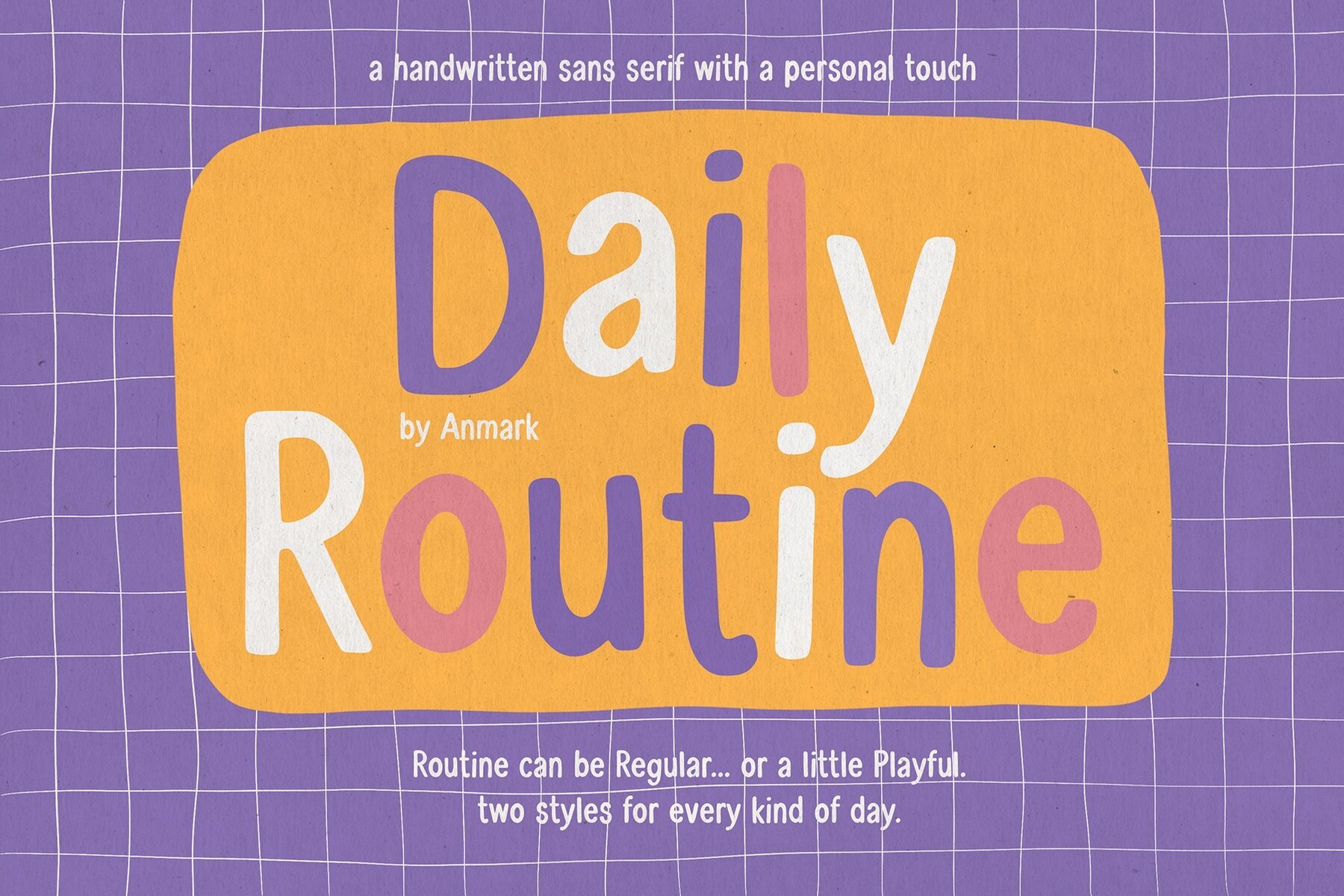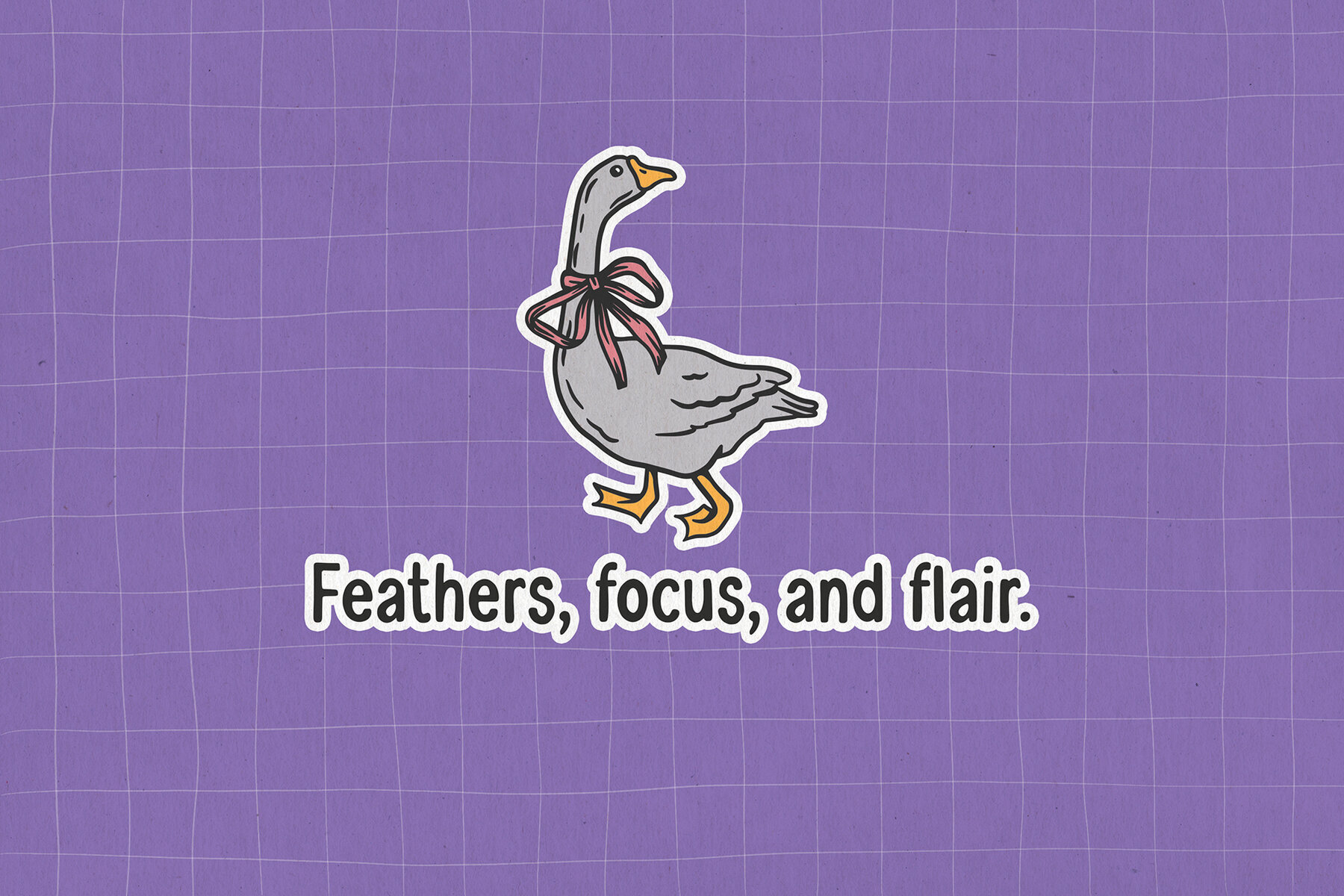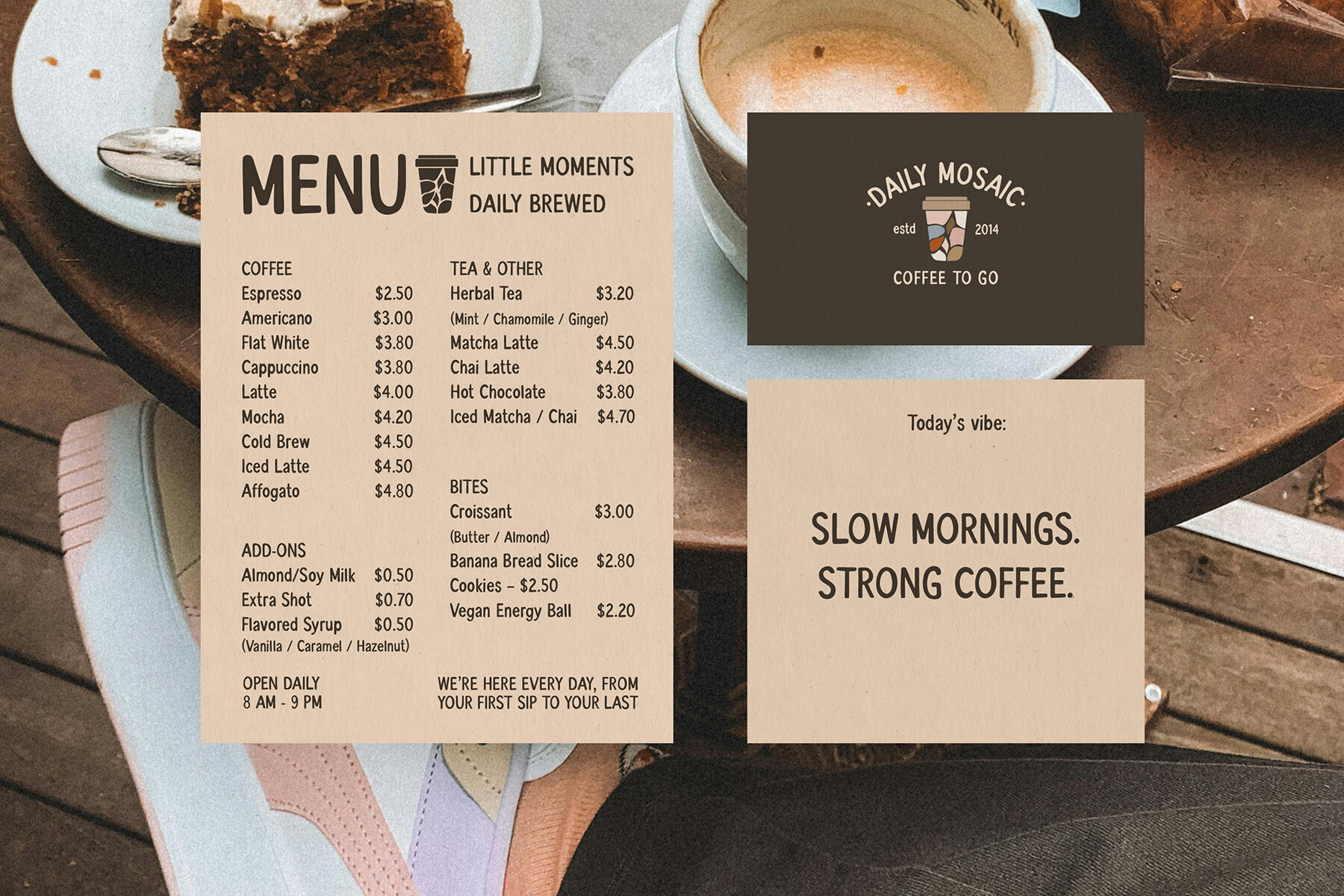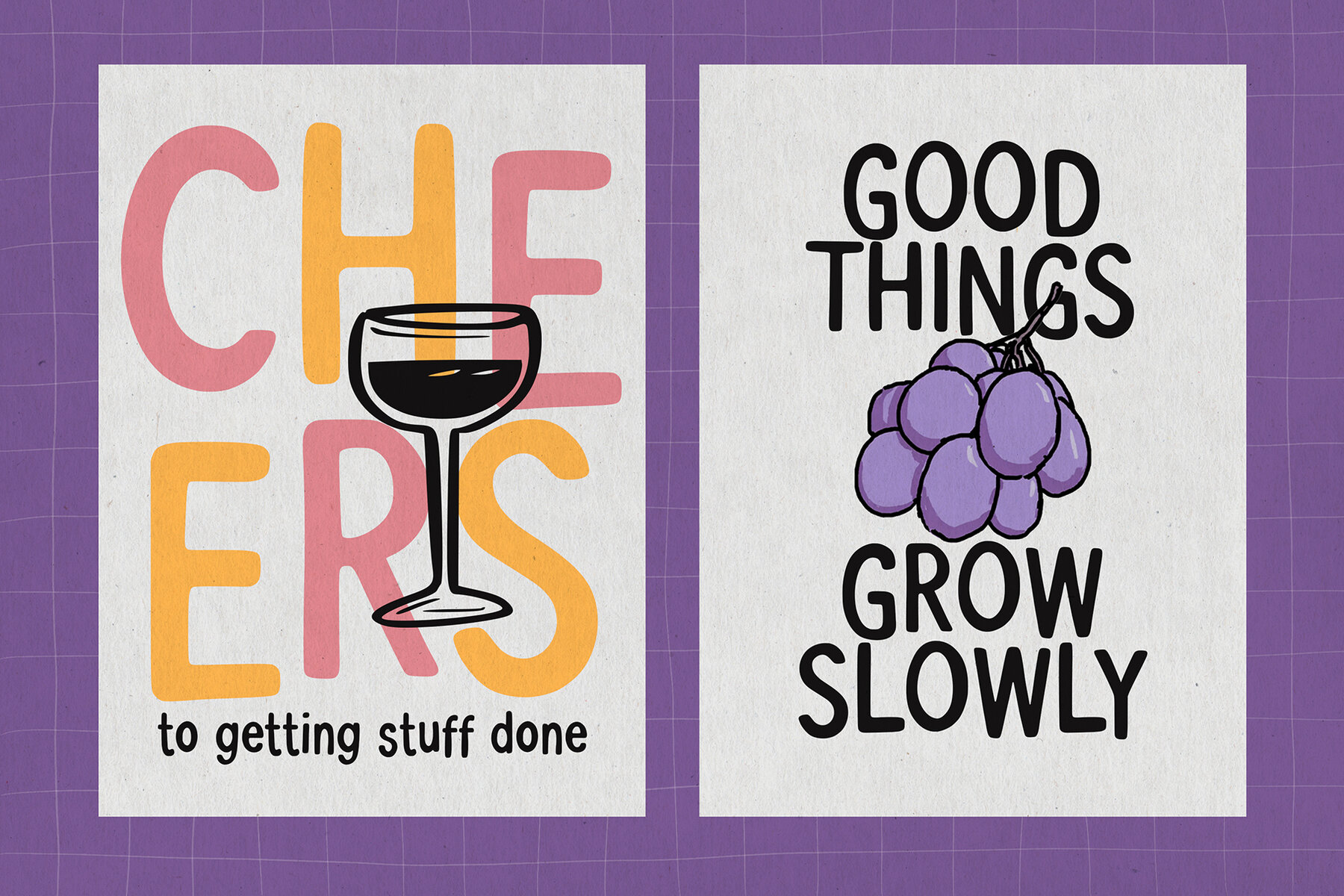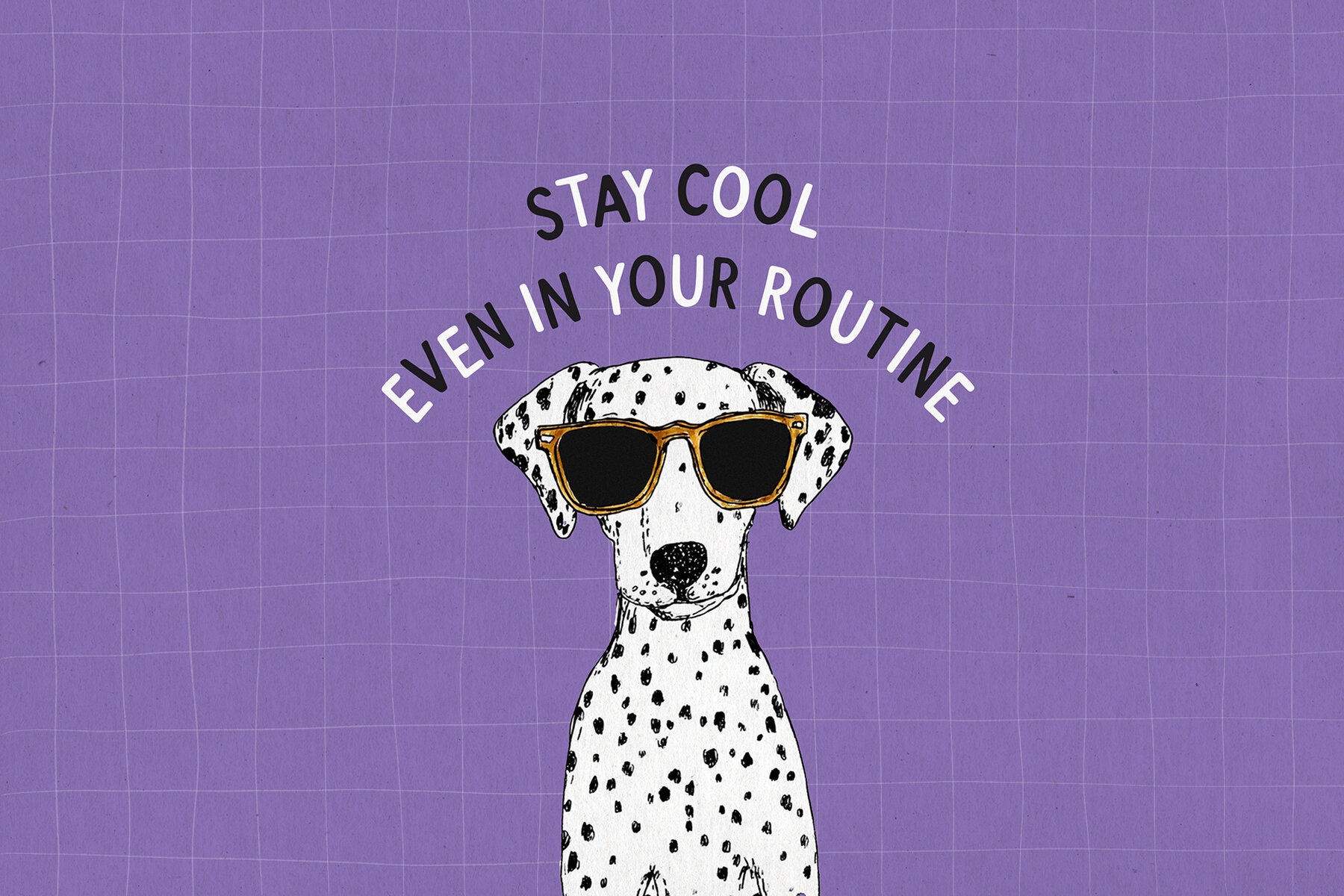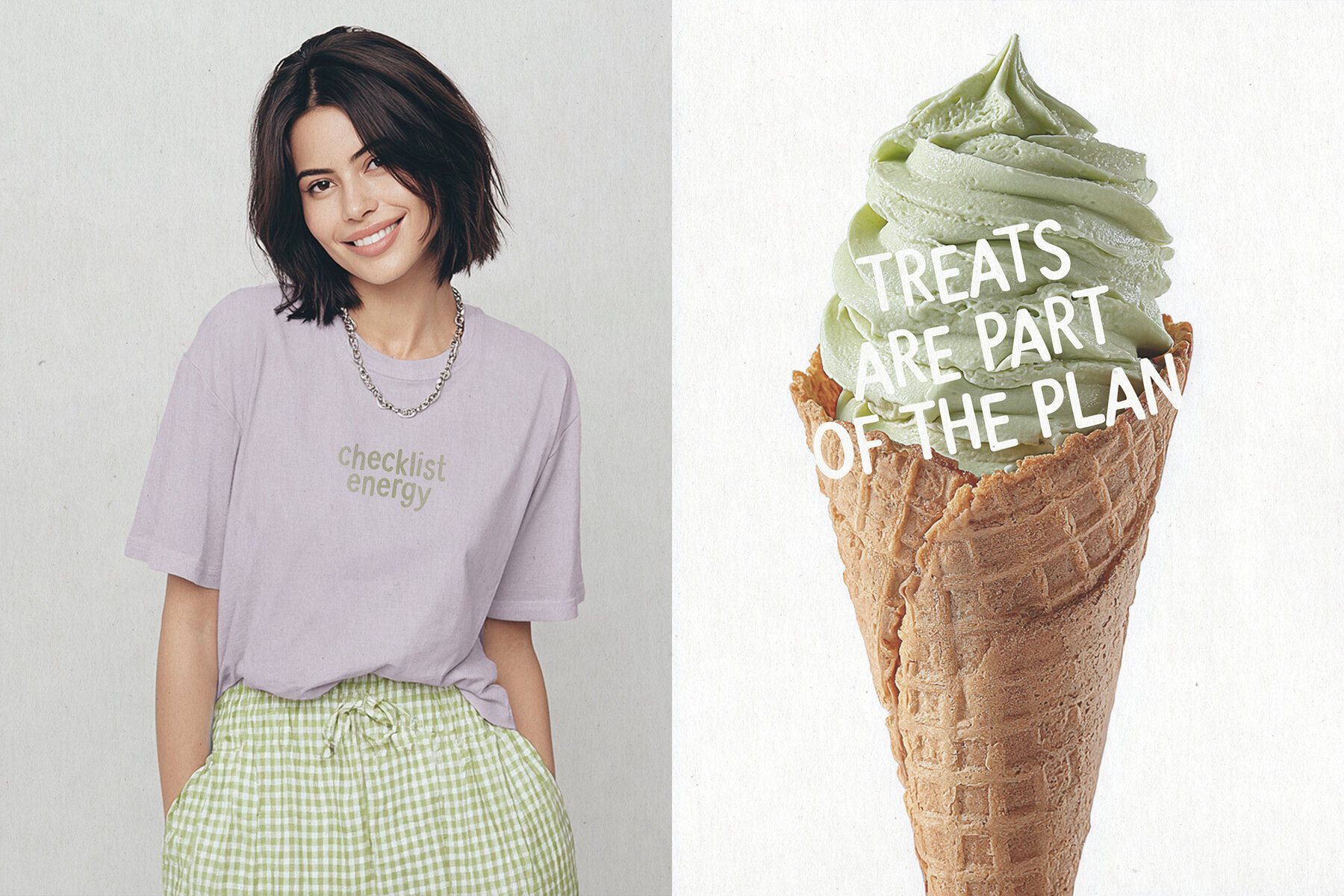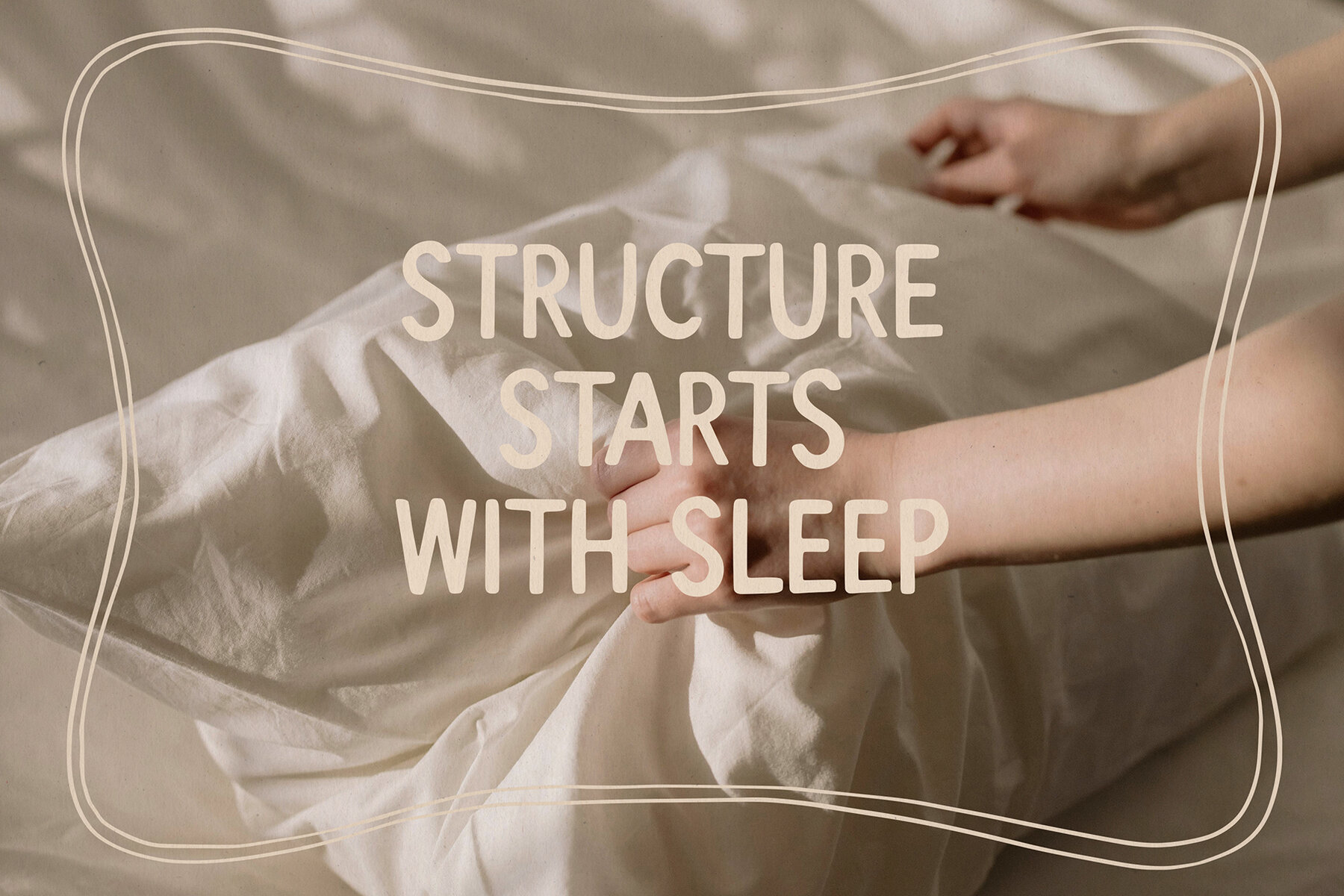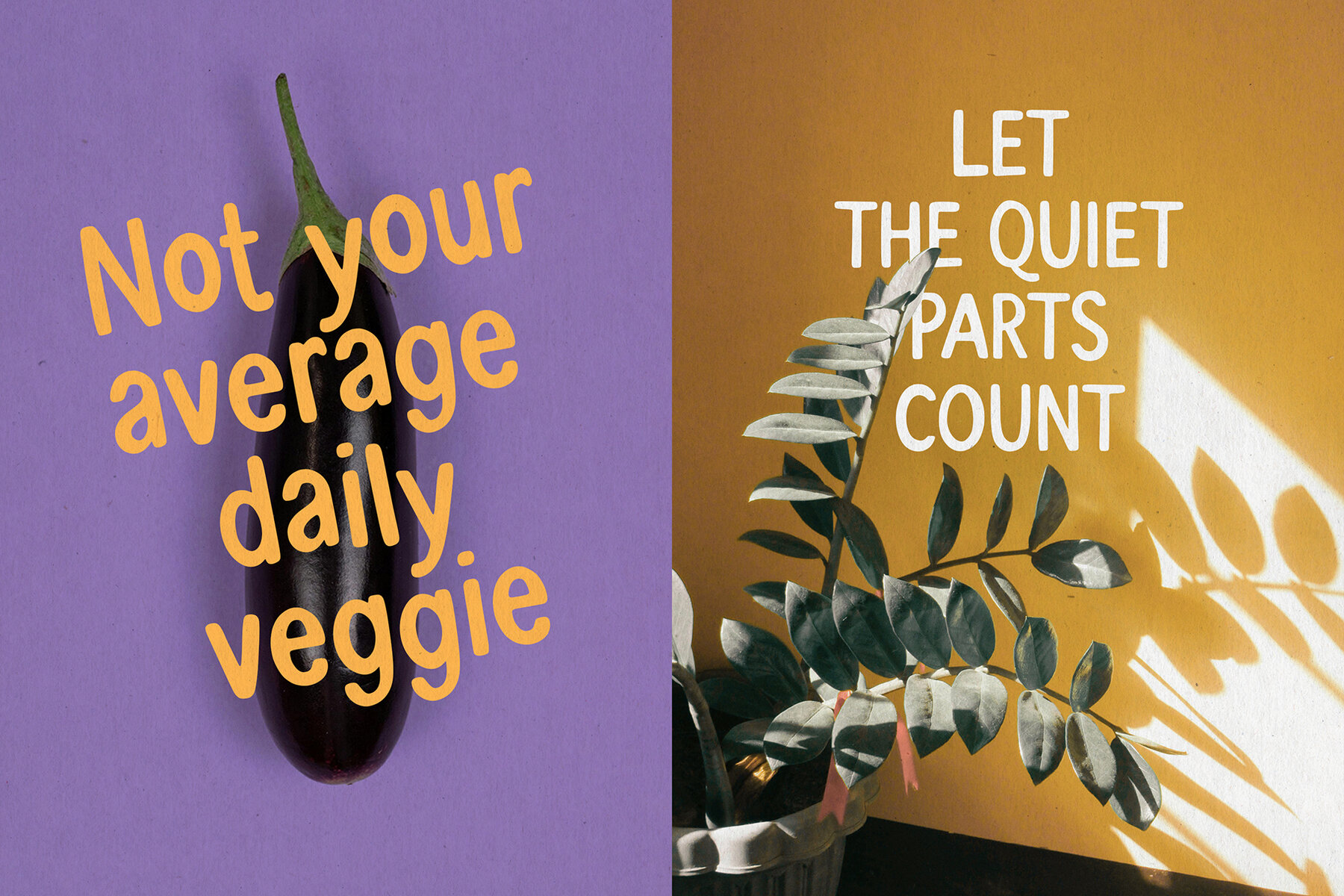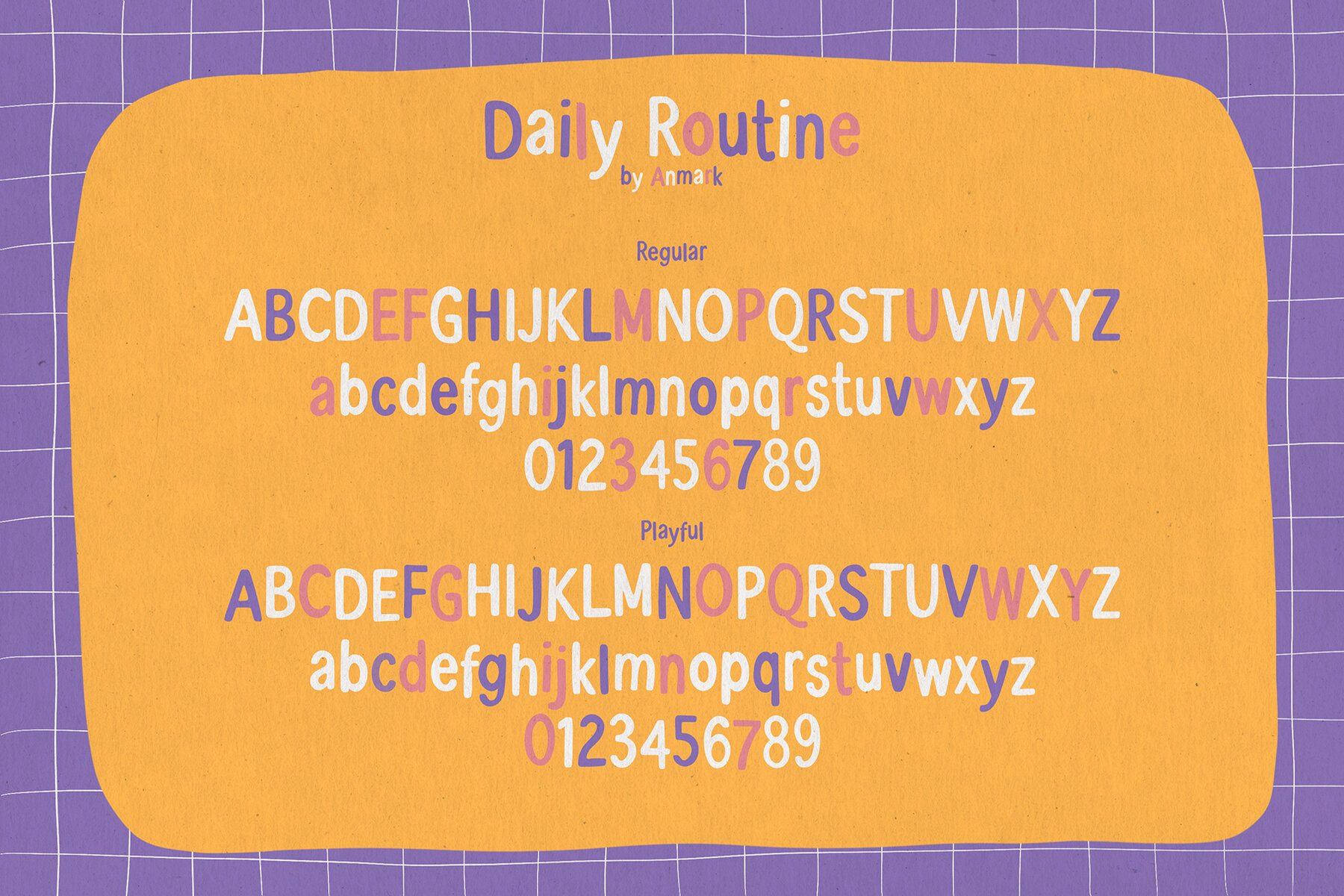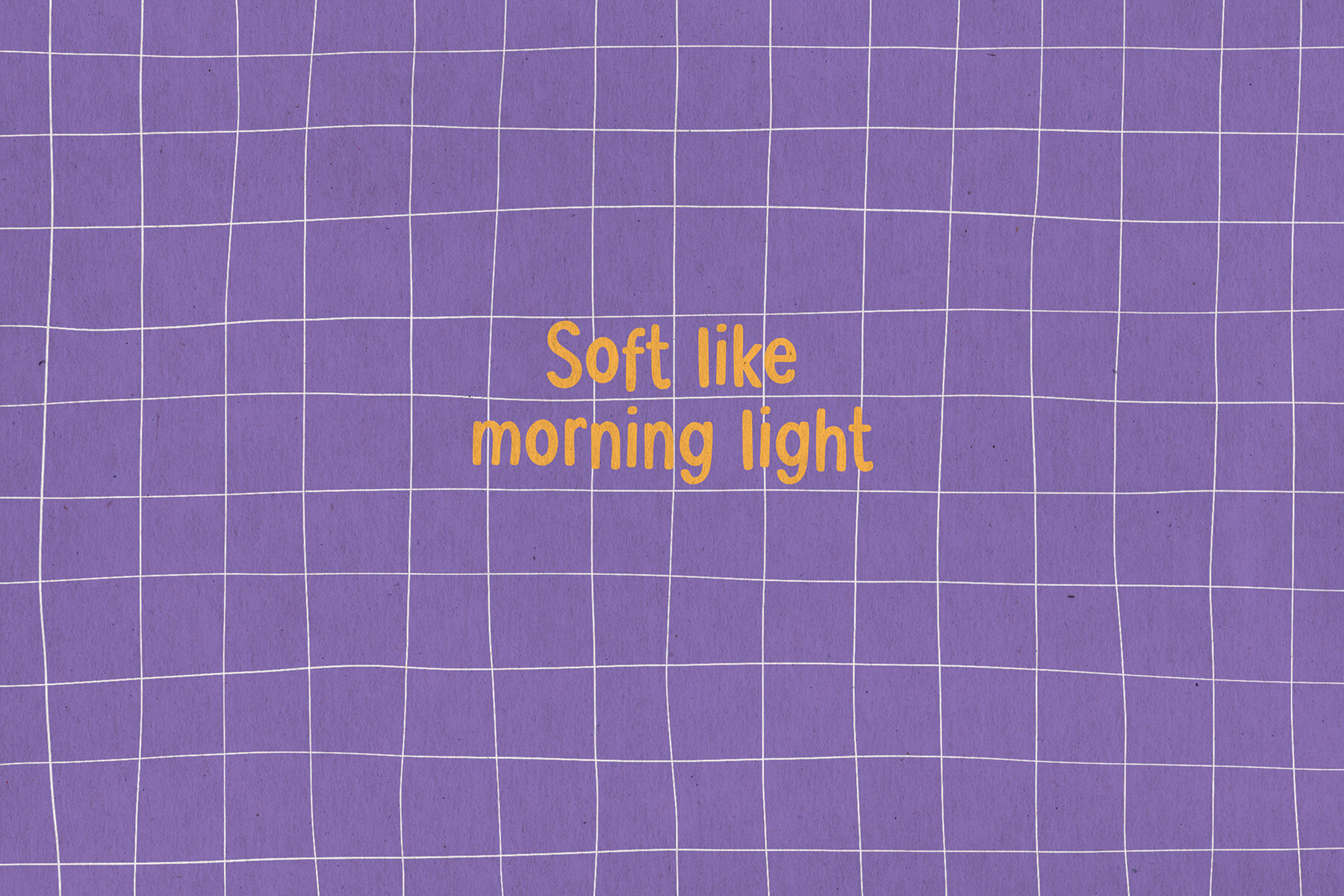
Daily Routine Font
Daily Routine Regular
Daily Routine Playful
Daily Routine offers a handmade sans serif style that exudes calmness and personal charm. Its design invites feelings of friendliness and natural appeal, much like the notes in your beloved notebook or the casual jotting on a to-do list. This font is available in two distinct styles. The Regular style presents a clean and steady appearance, providing structure and clarity. Meanwhile, the Playful variant offers a slightly bouncy character, with delightful imperfections where letters gently sway above and below the baseline. Daily Routine suits a variety of applications, from coffee packaging and lifestyle brands to planners, stickers, notes, and social media graphics. It brings warmth and informality, perfect for small moments, gentle mornings, and everyday expressions. Daily Routine embodies a harmonious balance of structure and spontaneity, blending order with a playful touch.Daily Routine: A Cozy Sans Serif Font